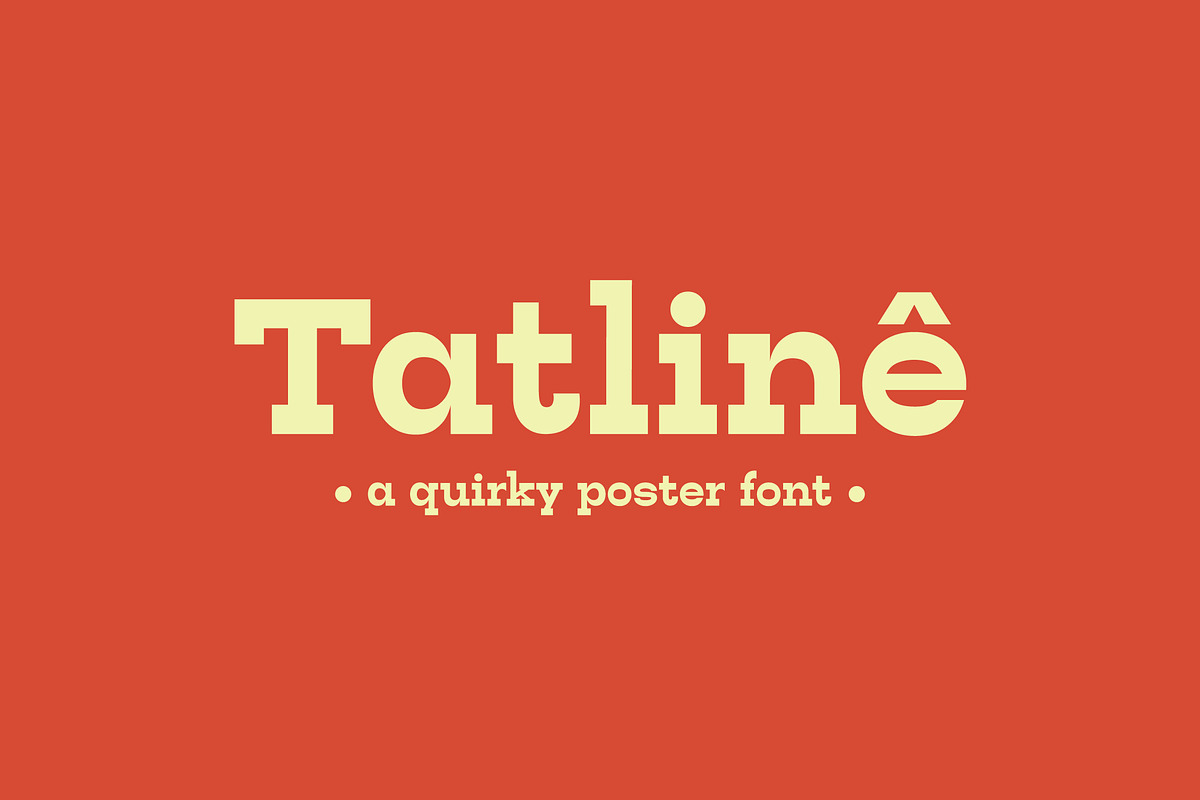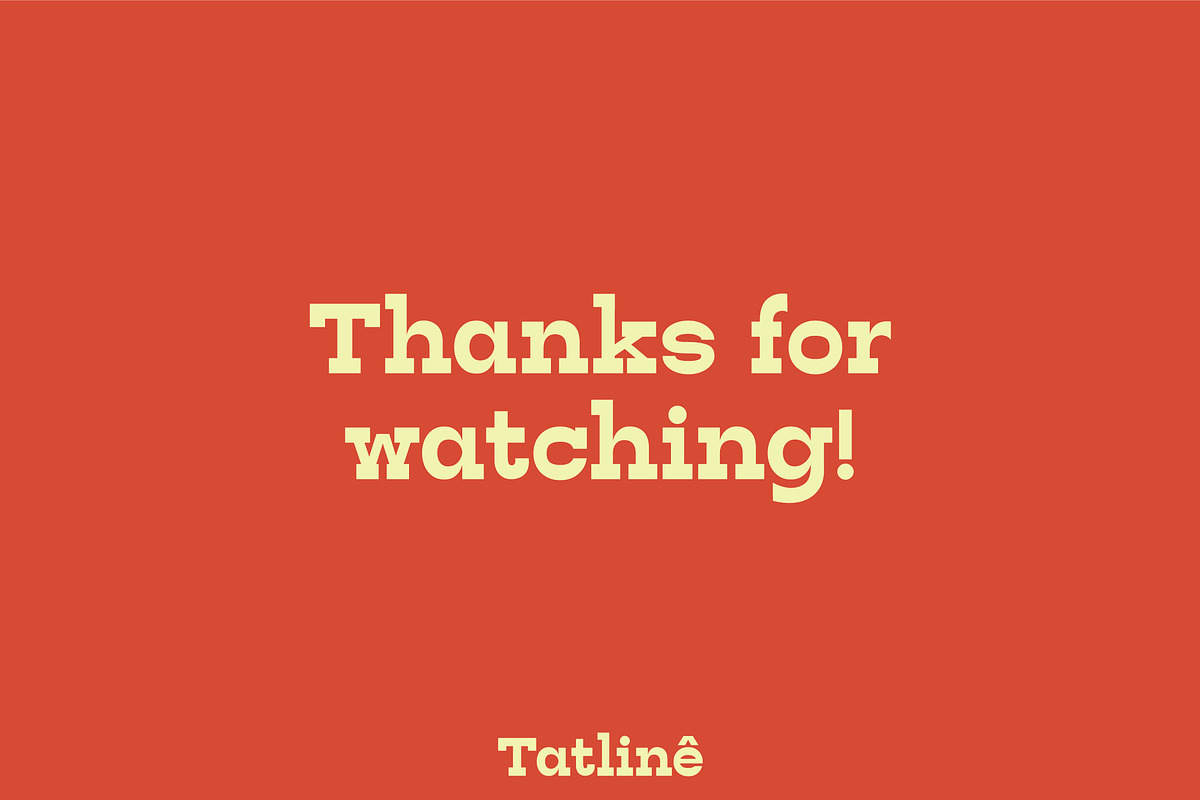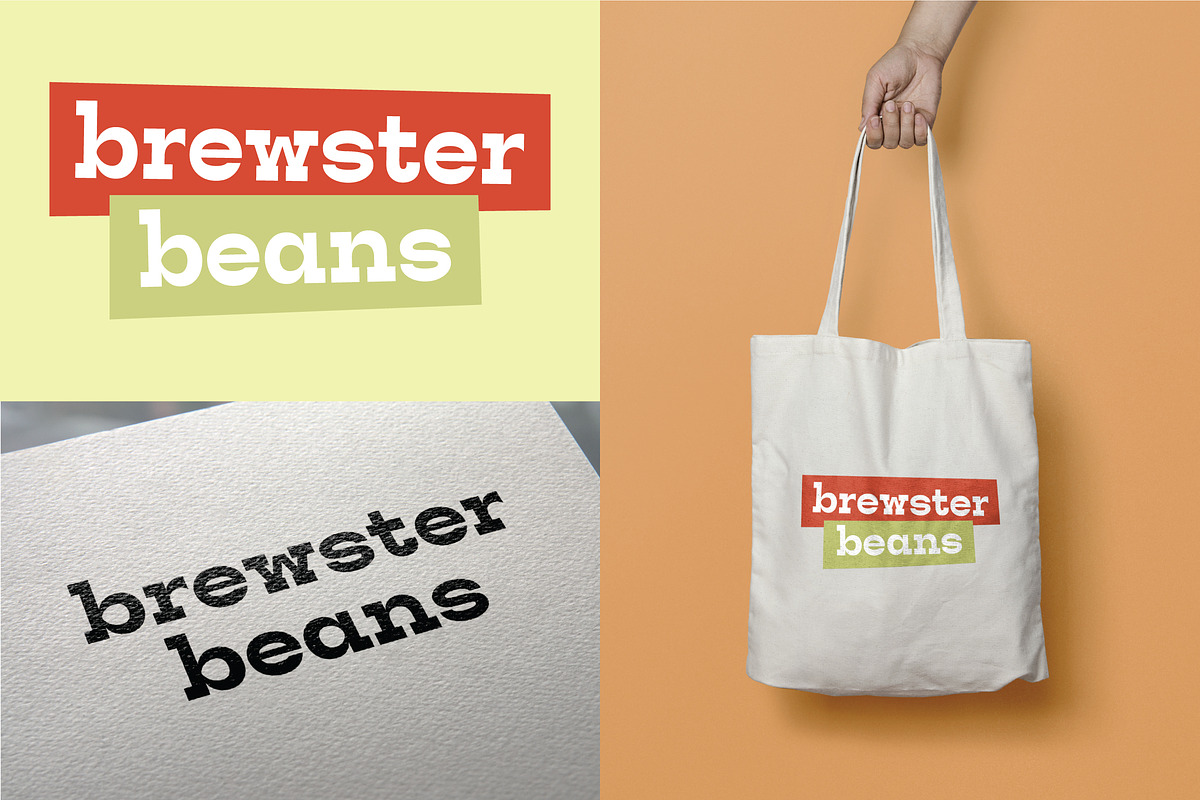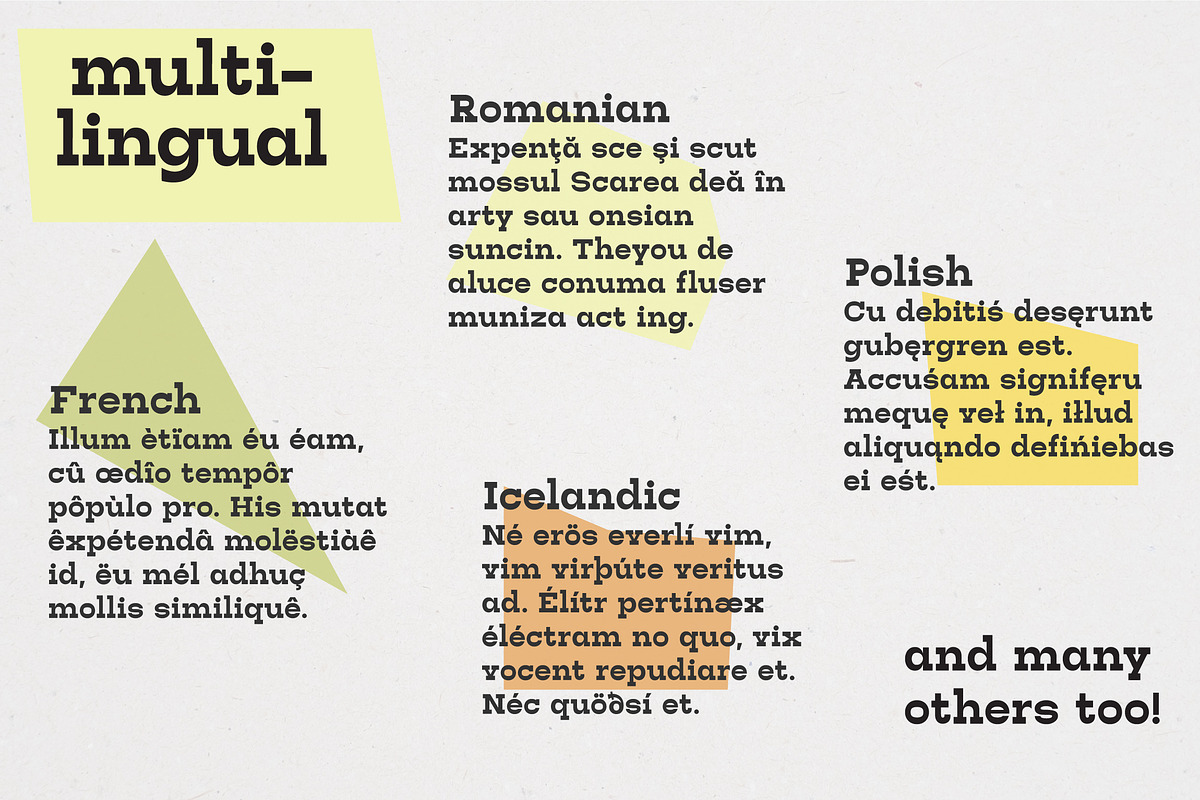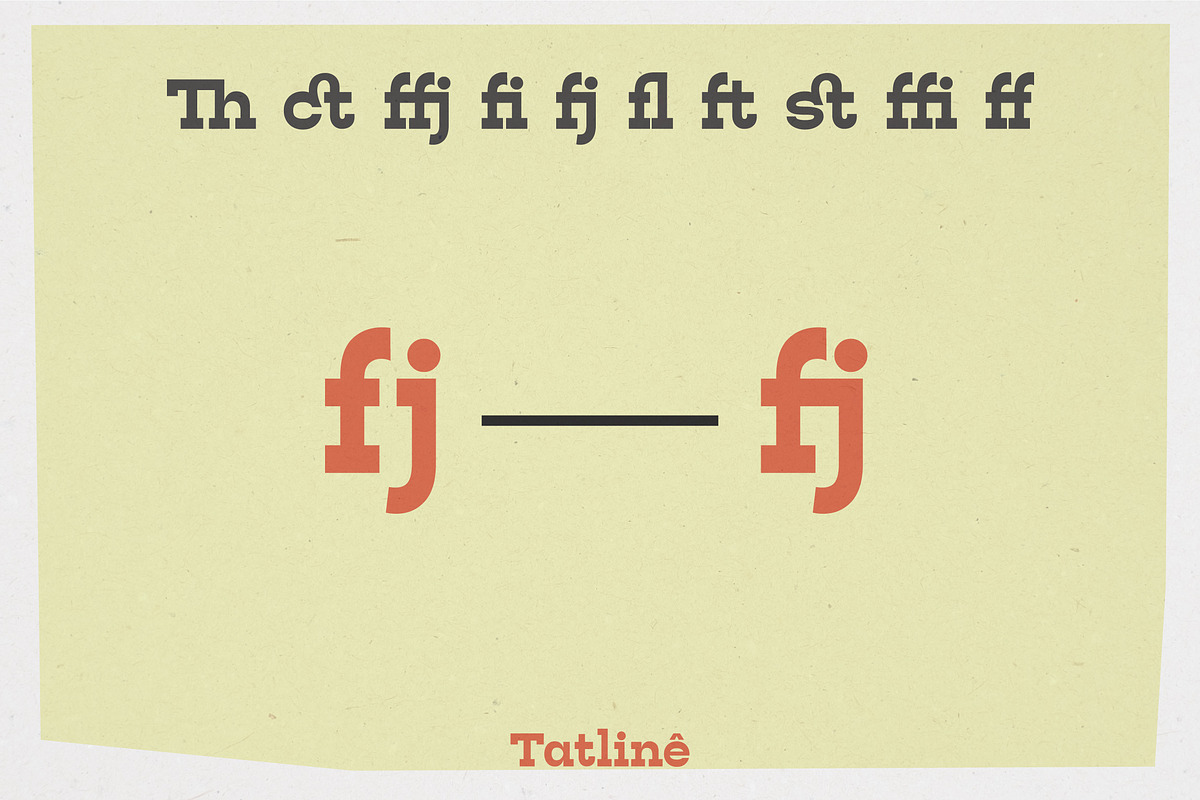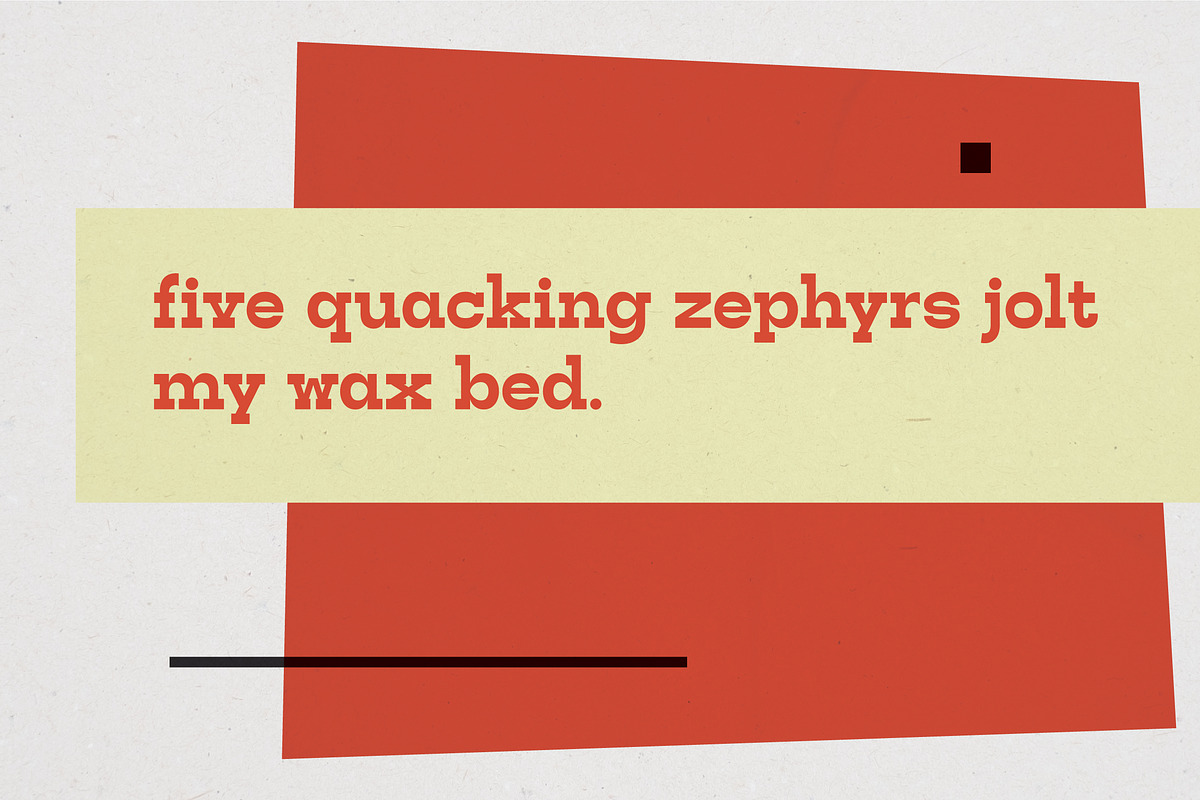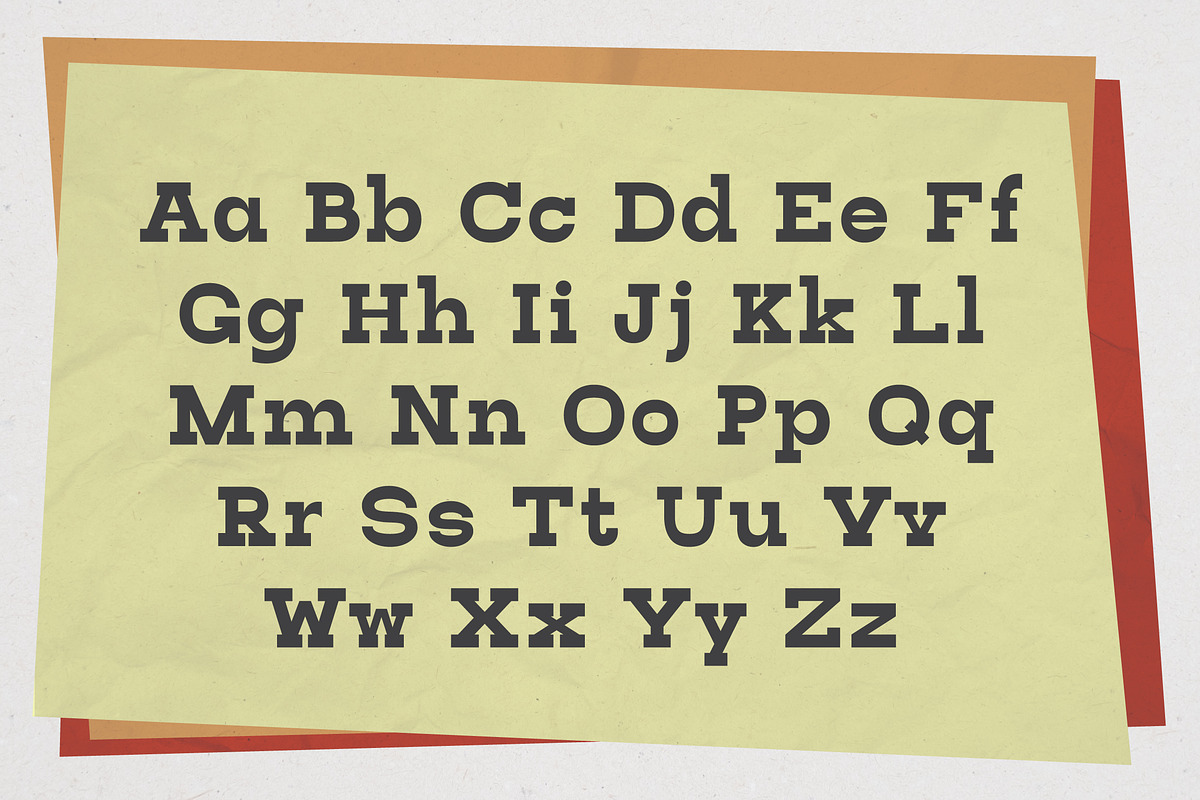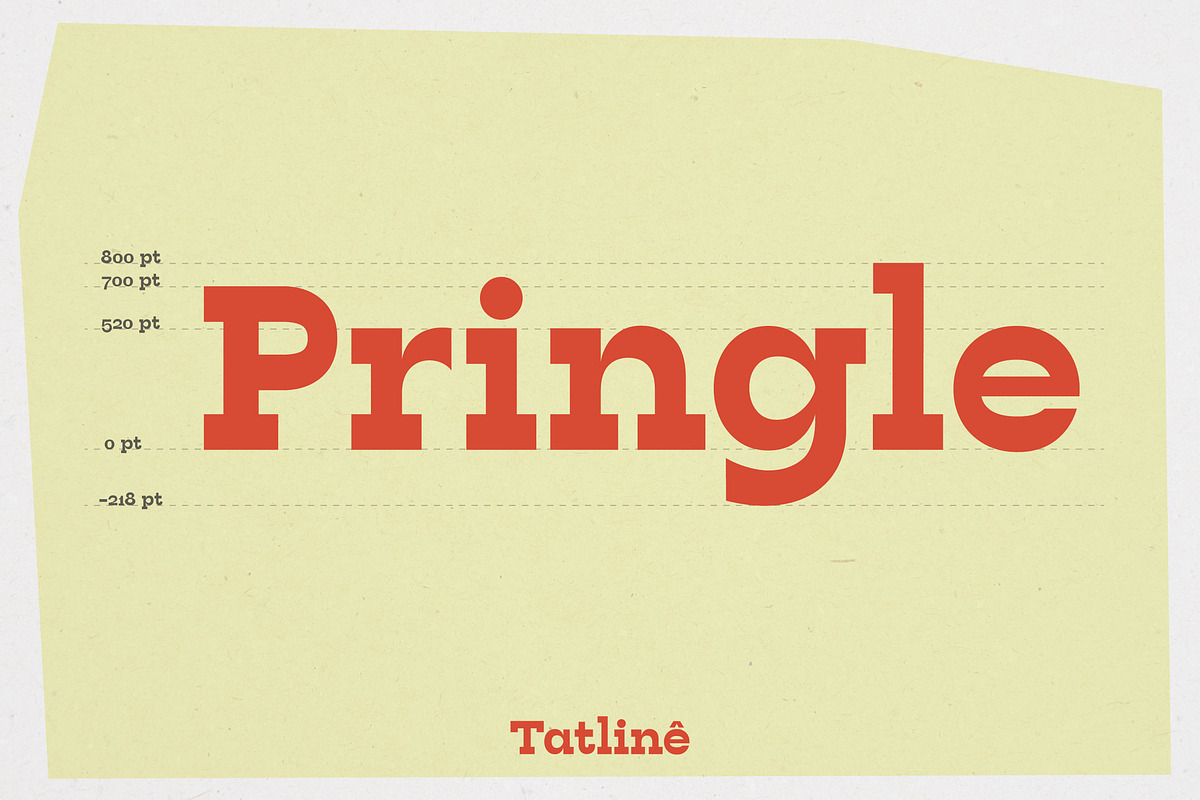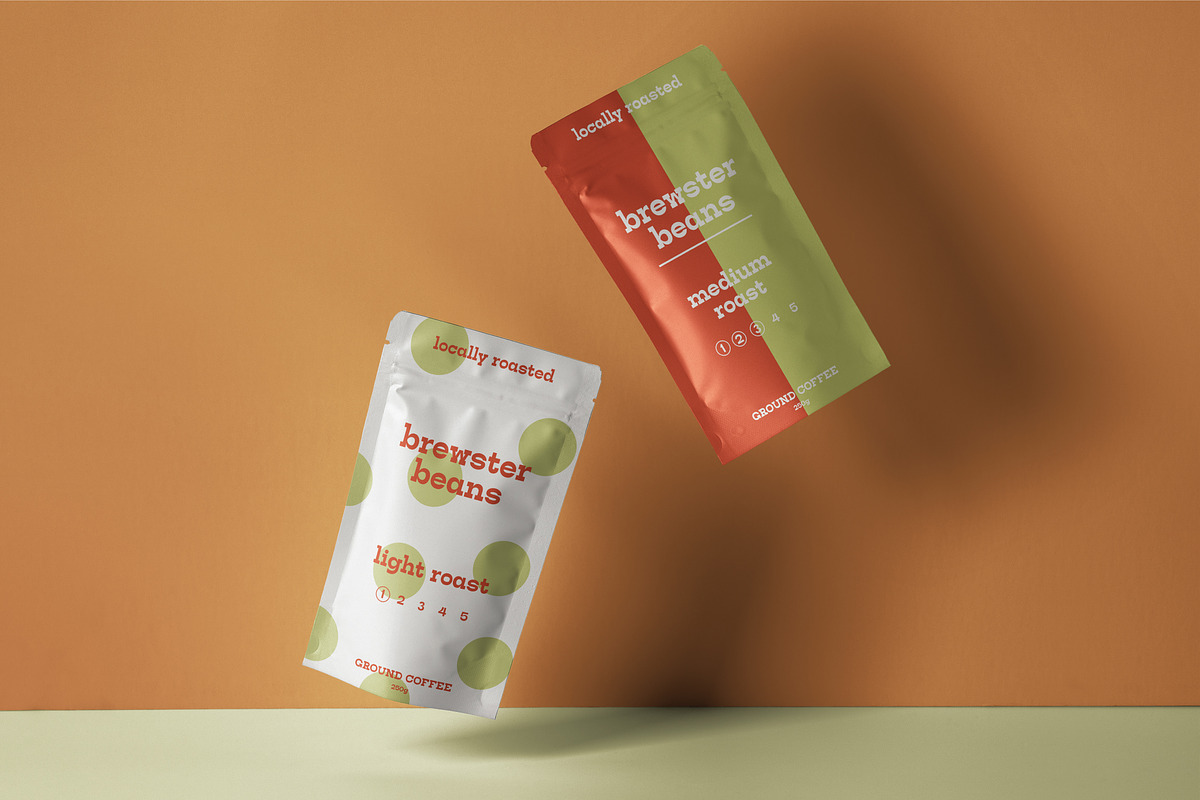
Tatline — Bold & Chunky Serif Font
Tatlinê Serif Font was inspired by the 70's ads and vintage posters -- and its grotesque yet appealing look shows it. Surprisingly versatile given its stem weight, Tatlinê Serif is great for branding, headlines, ads, flyers and web design. With over 380 glyphs it can be used across all European languages -- whether it be Romanian or Icelandic, Tatlinê Serif would never let you down. Try it out and let us know what you think!
• Uppercase
• Lowercase
• Ligatures (standard and discretionary)
• Multilingual Support (˘`´ˆ¨ etc.) for both Caps and Lowercase
• Numerals (Linear/Regular, Oldstyle)